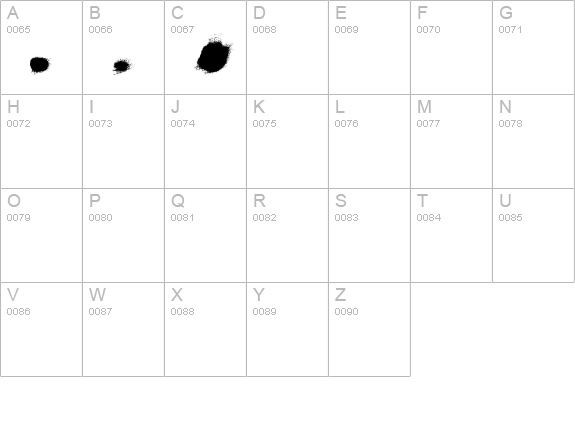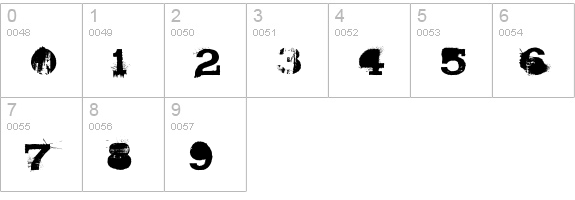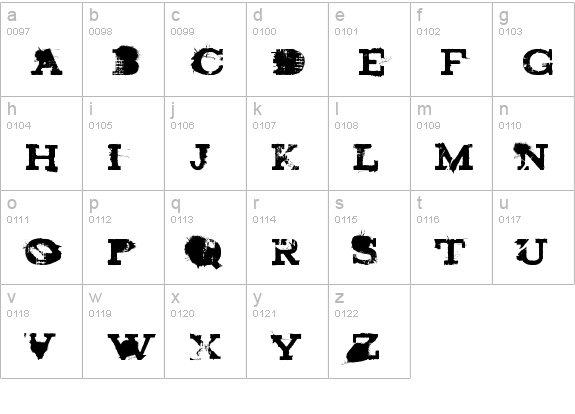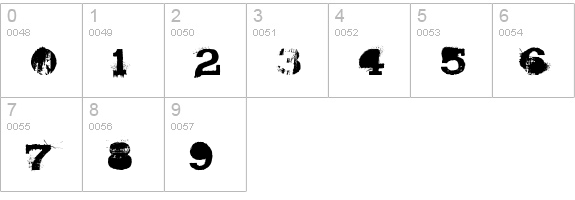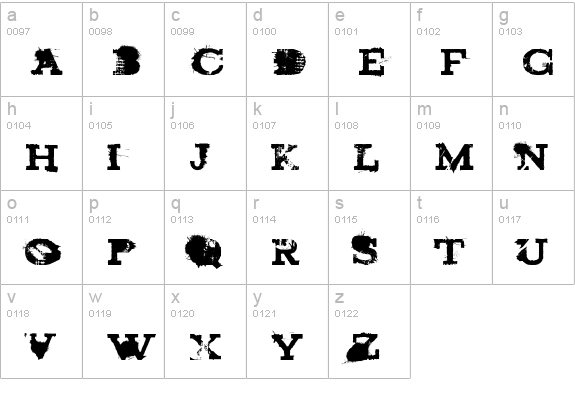
brand new burn Font Details
Introducing the stunning and edgy Burn Font – a brand new typeface that is sure to make a bold statement in your designs! This unique font features fiery, dynamic letterforms that exude energy and intensity. Perfect for adding a touch of excitement to your projects, Burn Font is the ideal choice for those seeking a modern and impactful typographic solution. The best part? Burn Font is completely free to download at FontsMarket.com! Yes, you read that right – this powerful font is available for you to use in your personal and commercial projects without any cost. So go ahead and unleash the power of Burn Font in your designs today and watch them ignite with creativity and passion. Download now and set your designs on fire with Burn Font!